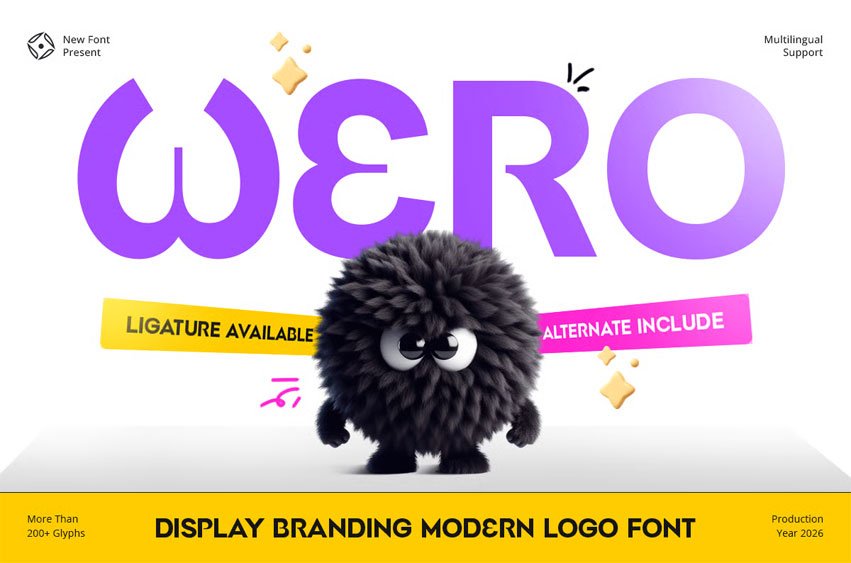
Wero Font Display Branding Modern Logo Font is a contemporary display typeface crafted to help brands establish a strong, memorable, and modern visual identity. Inspired by clean branding systems and modern logo design trends, WERO is designed for projects that require clarity, creativity, and professional appeal.
With its refined letterforms, balanced proportions, and modern structure, WERO delivers a distinctive typographic presence that performs exceptionally well in logos, headlines, and branding materials. The design combines visual impact with readability, making it suitable for a wide range of creative and professional applications.
WERO Font Features
- Character Set: Uppercase, lowercase, numbers, symbols, and punctuation
- Modern display letterforms optimized for logo design and branding
- OpenType features ready to enhance your design needs
WERO is Perfect For
- Modern logo and brand identity design
- Creative business and startup branding
- Website headers and digital brand assets
- Marketing materials and promotional campaigns
- Editorial headlines and display typography
- Contemporary visual communication projects
Whether you are creating a modern brand identity, designing a professional logo, or developing a creative branding system, WERO provides the clarity, versatility, and contemporary style needed to make a lasting impression.